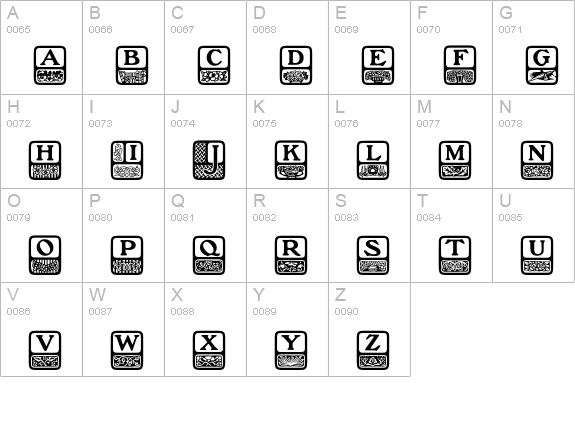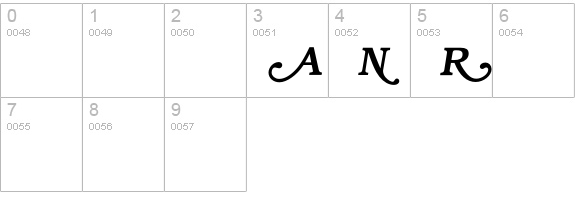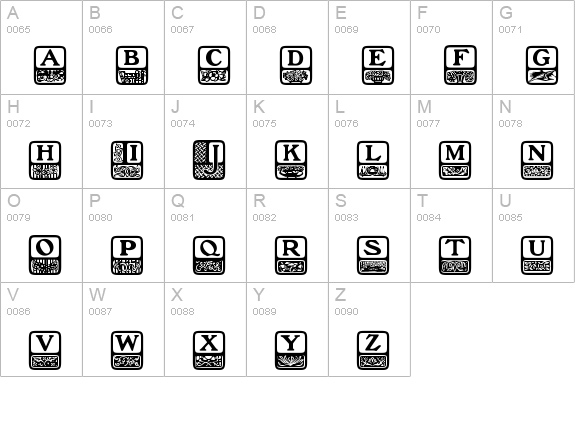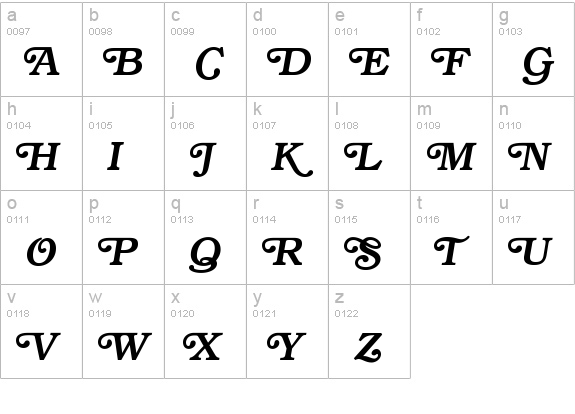
SpecialAlphabetsP05 Font Details
SpecialAlphabetsP05 is a unique and captivating font that is sure to make your designs stand out. This font features a stunning array of special characters and alphabets, perfect for adding a touch of creativity and individuality to your projects. Whether you're designing a logo, creating eye-catching headlines, or crafting beautiful typography, SpecialAlphabetsP05 has got you covered. One of the best things about SpecialAlphabetsP05 is that it is freely available to download at FontsMarket.com. You can easily access this incredible font and start incorporating its mesmerizing letters and symbols into your designs. No need to worry about licensing fees or restrictions – SpecialAlphabetsP05 is completely free and ready to unleash your creativity. With its intricate detailing and artistic flair, SpecialAlphabetsP05 is perfect for a wide range of design purposes. Its versatility allows it to be used in various contexts, from fashion and beauty to food and beverage industries. Whether you're working on a professional project or a personal endeavor, SpecialAlphabetsP05 will undoubtedly add a touch of elegance and sophistication to your work. The characters in SpecialAlphabetsP05 are meticulously designed, ensuring that each letter and symbol is visually pleasing and visually harmonious. The font's unique style and attention to detail make it an excellent choice for creating striking headlines, captivating logos, and stylish branding materials. Don't miss out on the opportunity to enhance your designs with SpecialAlphabetsP05. Download this extraordinary font for free at FontsMarket.com and let your creativity soar to new heights.